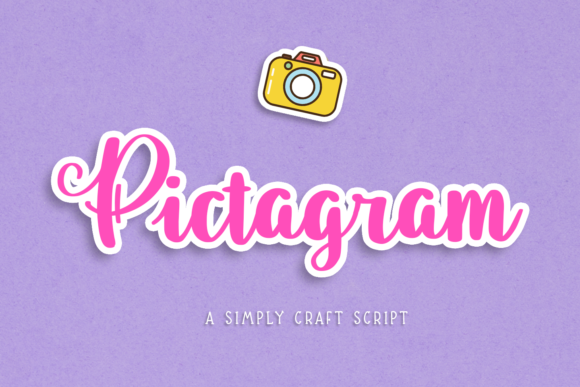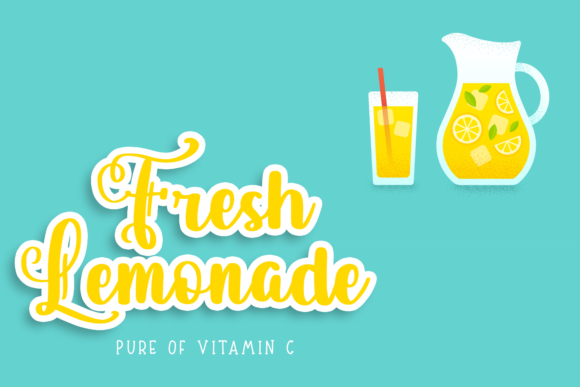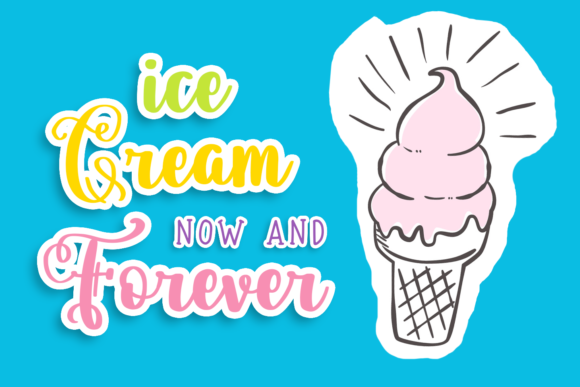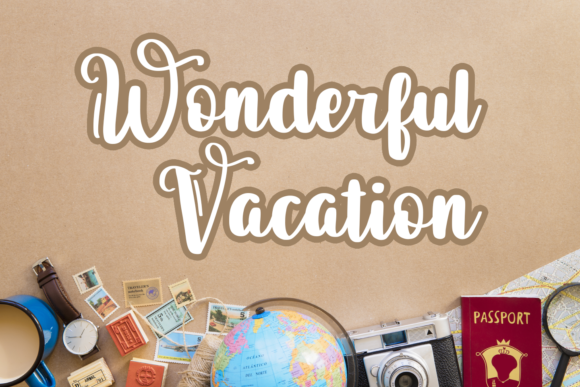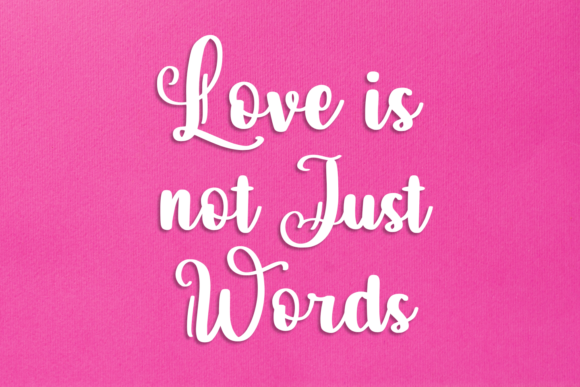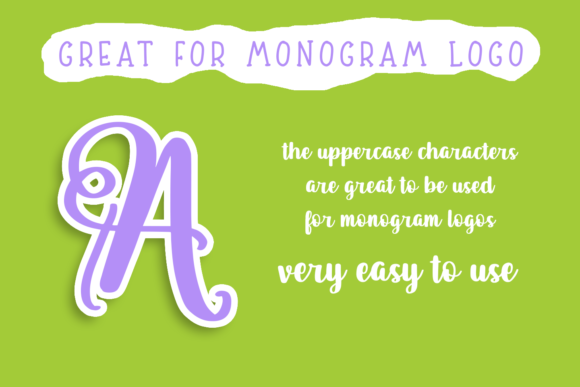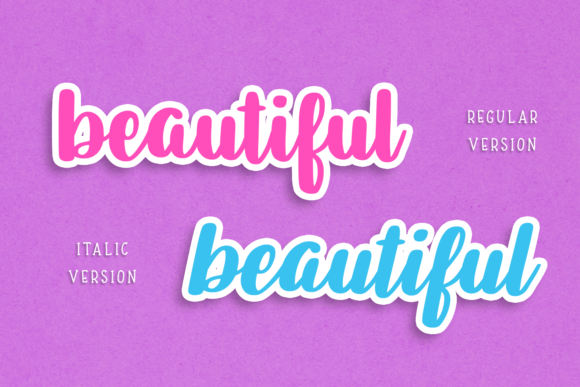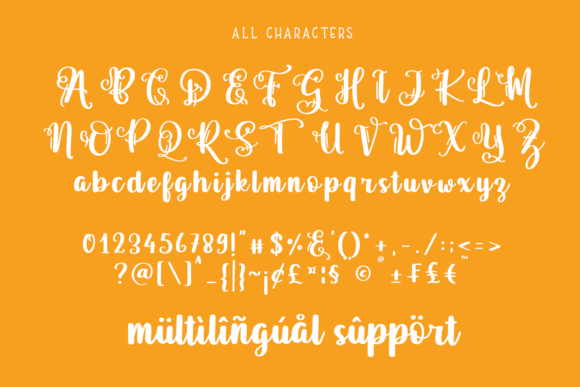
Pictagram Font
About Pictagram Font
Pictagram is a gorgeous and fun script font that radiates charm. Fall in love with its unique style, and turn any craft idea into a true standout!